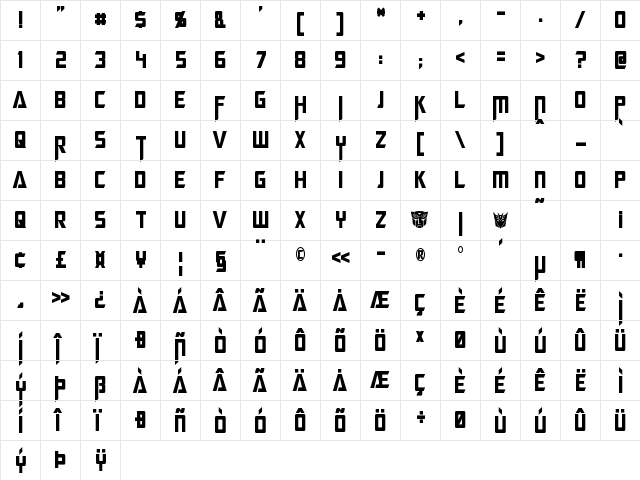
Megatron Condensed Regular
| Foundry | Neale Davidson |
| Designer | Neale Davidson |
Design Context for Megatron Condensed Typeface
Megatron Condensed is a composed and adaptable typeface that performs quietly and consistently across a wide range of design contexts. Its narrow stance lets it pack a punch even in space-constrained designs.